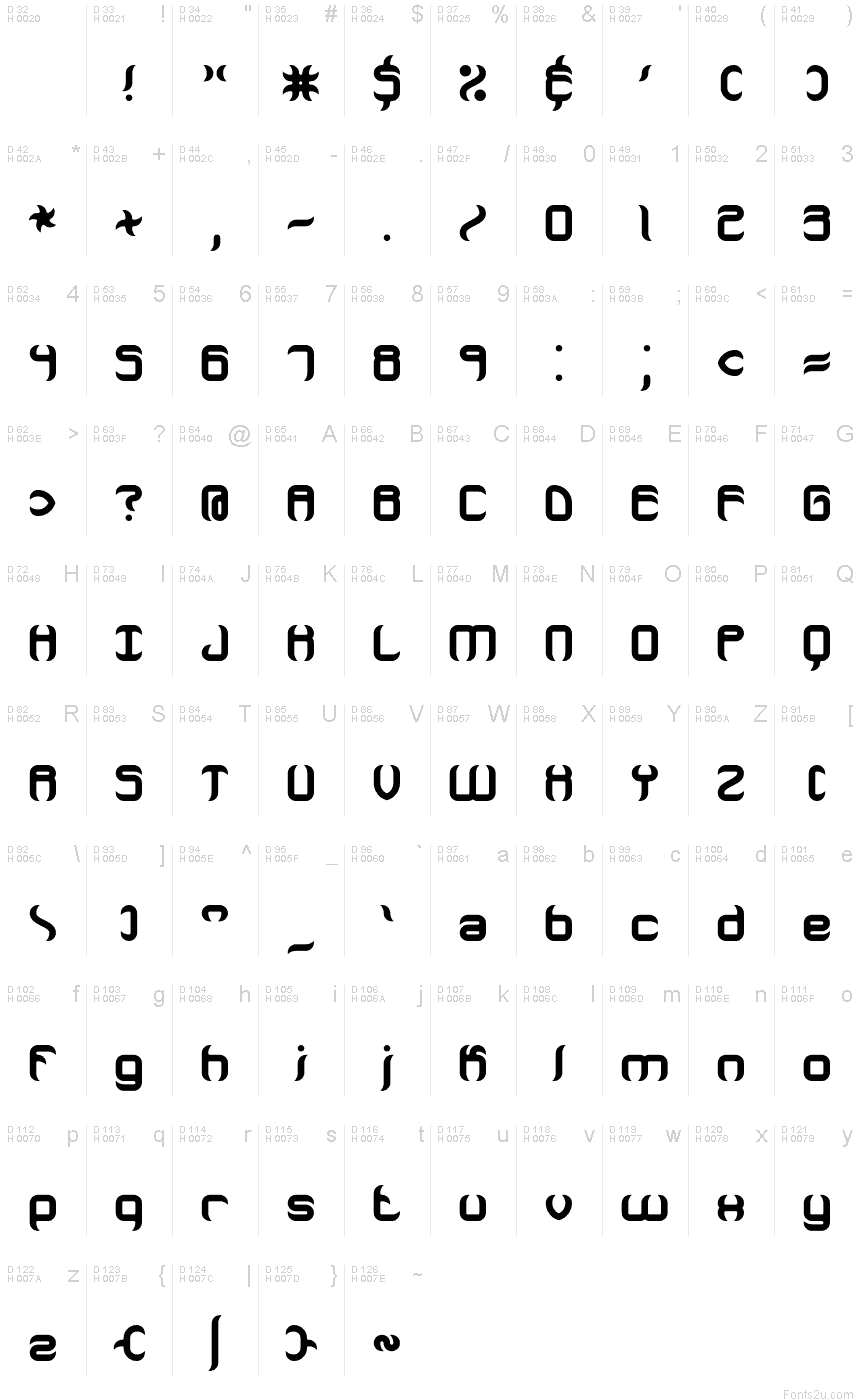
Jeopardize Thick BRK
Jeopardize Thick BRK font by Ænigma Fonts is a free groovy display typeface with a bold, rubbery bounce that feels straight off a retro game console. Its chunky, rounded rectangles and tight curves lock together like glossy tiles, giving words a compact, futuristic rhythm while still staying legible. The smooth, pill-shaped forms and squared counters create a playful techno vibe that feels both nostalgic and sharply digital.
Using Jeopardize Thick BRK, text snaps into blocky, confident word-marks that work beautifully for gaming logos, electronic music covers, tech YouTube thumbnails, stickers, event posters, and bold app splash screens. This free font shines at larger sizes where its thick, inky shapes can really breathe, and it pairs cleanly with a simple geometric sans for supporting copy.